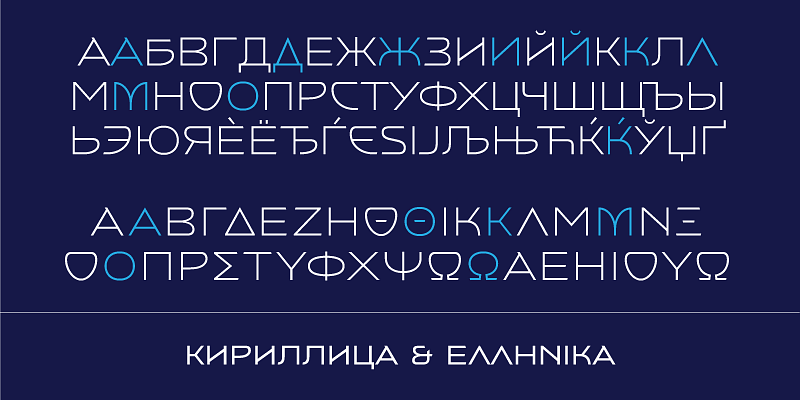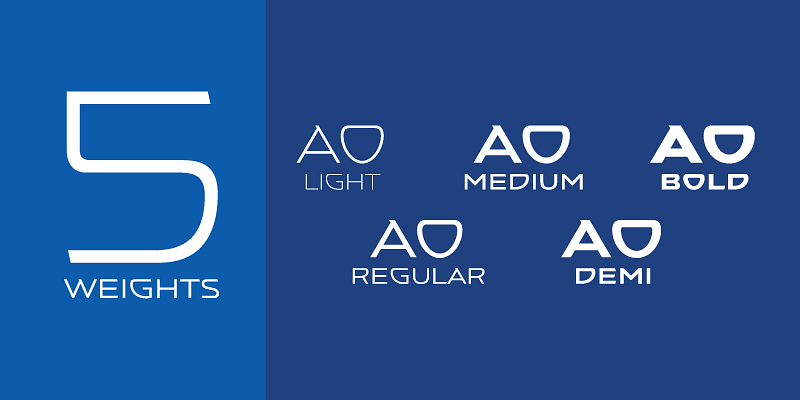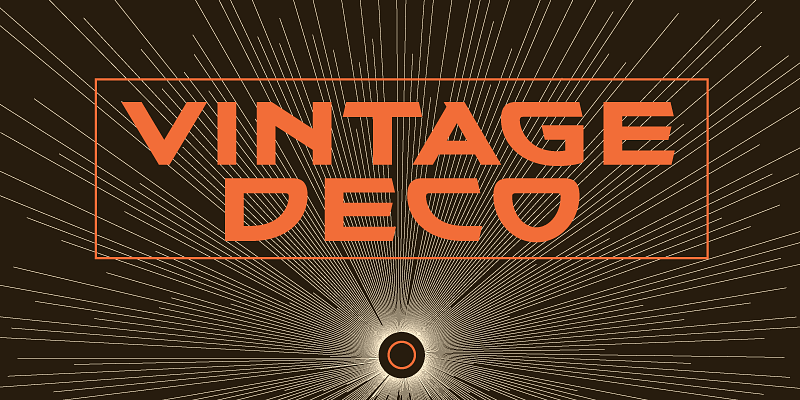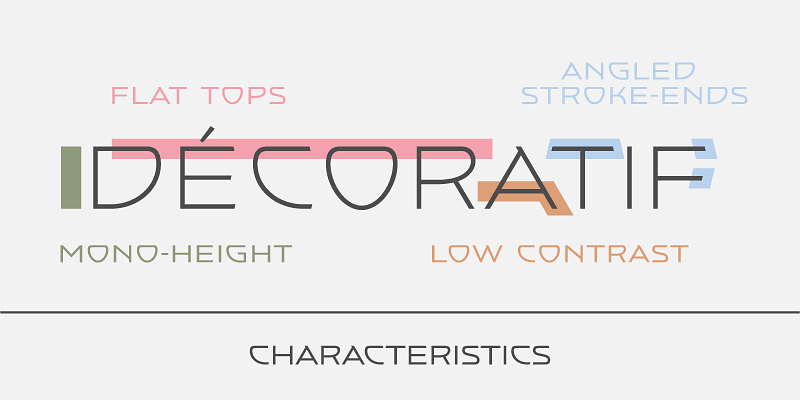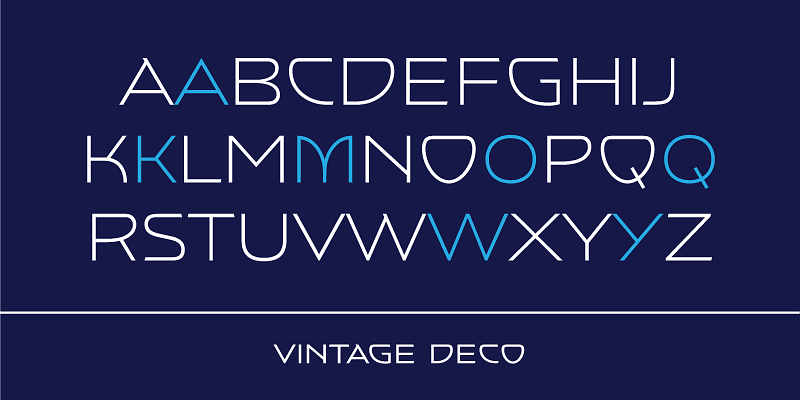
The seed for Vintage Deco was an old, sky-high vertical sign protruding from a hotel in Seatte. Wide, breezy, unique forms brimming with that casual west coast chic. You can almost smell the hot rod fuel and optimism there.